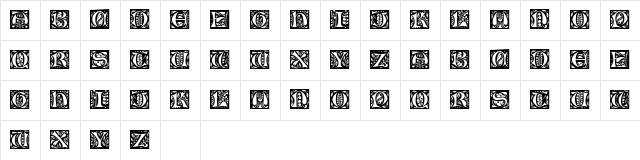
Nouveau Drop Caps Regular
Nouveau Drop Caps Family
Design Context for Nouveau Drop Caps
Nouveau Drop Caps is a composed and adaptable typeface that performs quietly and consistently across a wide range of design contexts.
Pro Tip: Use Nouveau Drop Caps in both headline and body roles to test its range before committing to a single application.